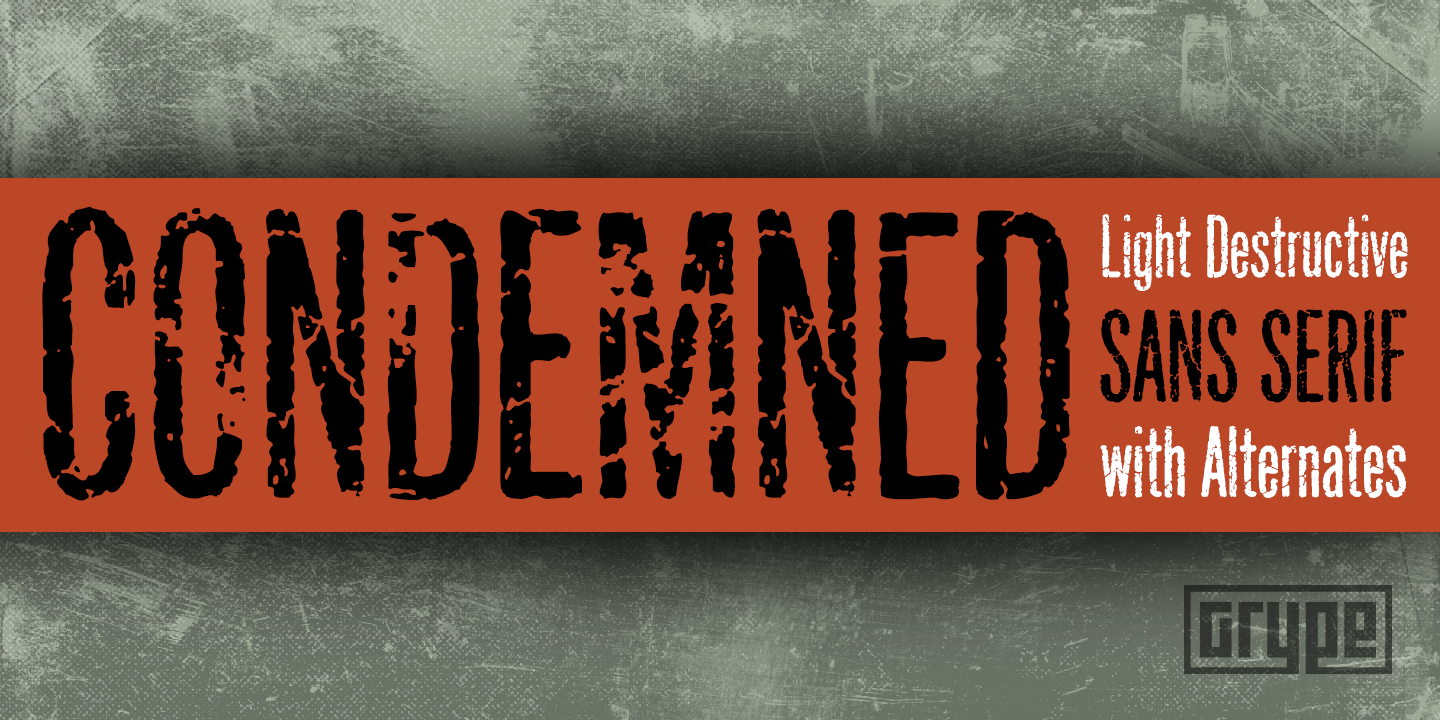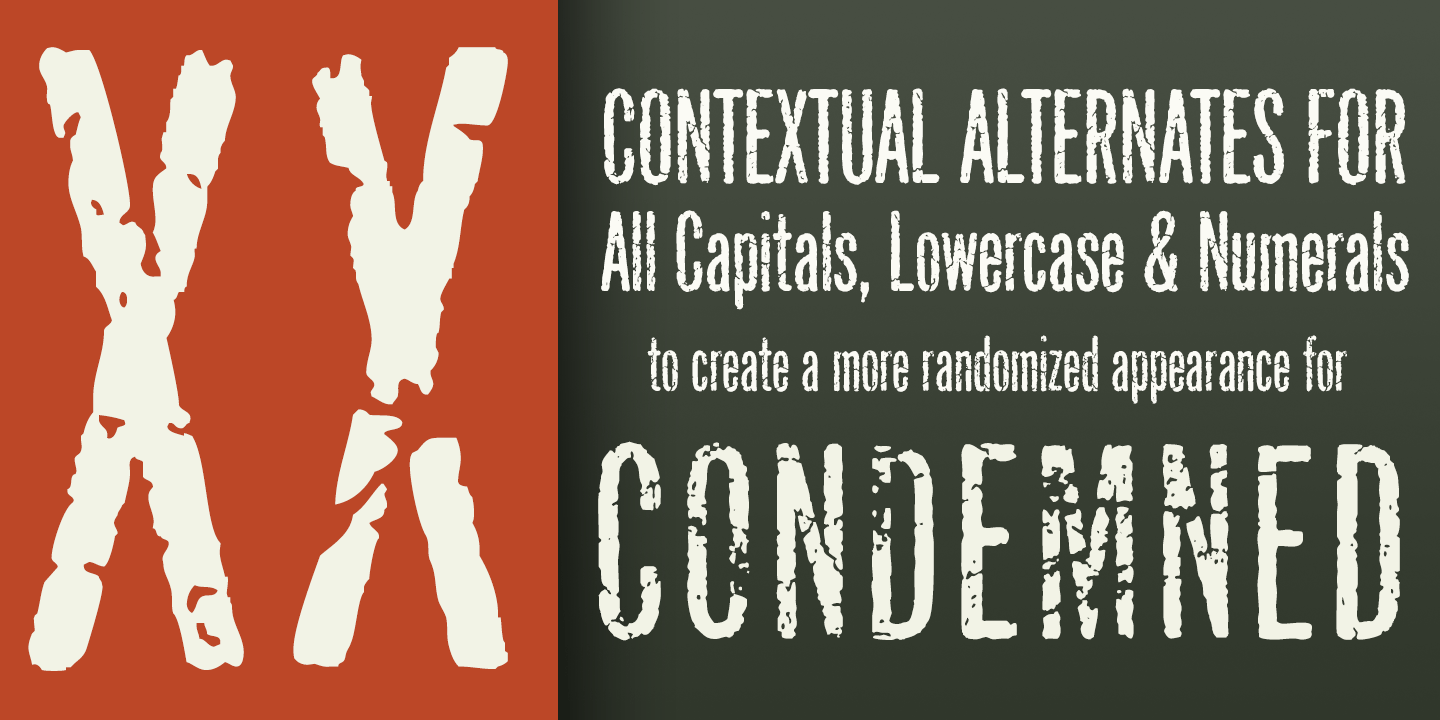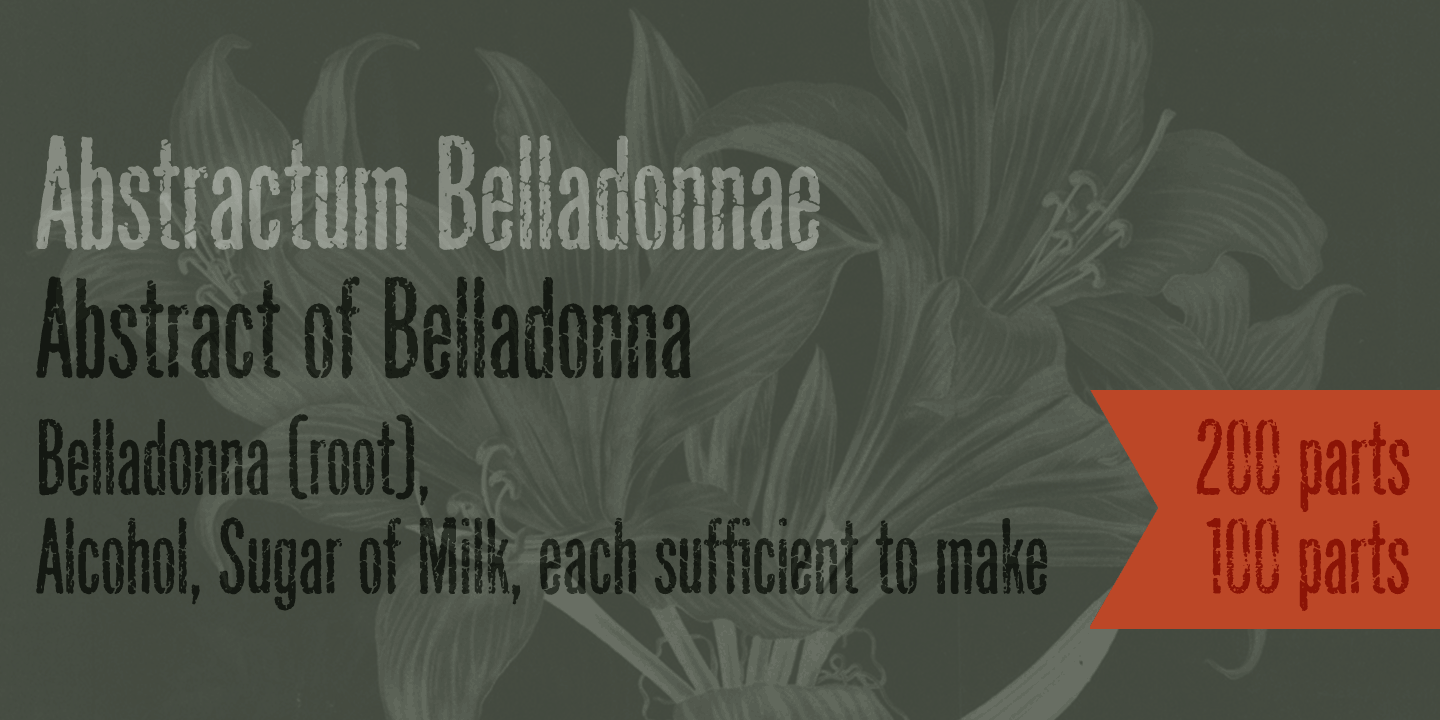
Condemned
Font Family by Grype
Condemned is a light destructive sans typeface created from an old damaged ATF Specimen Book from 1912, and looks reminiscent of poorly transferred rub off type. It contains a complete alternate core character set for a subtly randomized look.
Contextual Alternates that auto-switches between Capitals & Alternate Capitals, Lowercase and Alternate Lowercase, as well as Numerals and Alternate Numerals for visual randomness. To access the Contextual Alternates feature, you will need to be using software with Opentype compatibility otherwise you can access the alternate glyphs via a Glyphs panel.
Stylistic Alternates feature that swaps all standard Capitals, Lowercase, and Numerals with their Alternates
Here's why Condemned is for you:
- You're into legible but distressed typestyle that imitates a random distress to it
- You love condensed gothics, and want to pair them with a distressed condensed gothic
- You're a fan of old Letraset/Transfertype rub off lettering
- You're recreating weathered military ephemera and want a typeface with some tooth to it